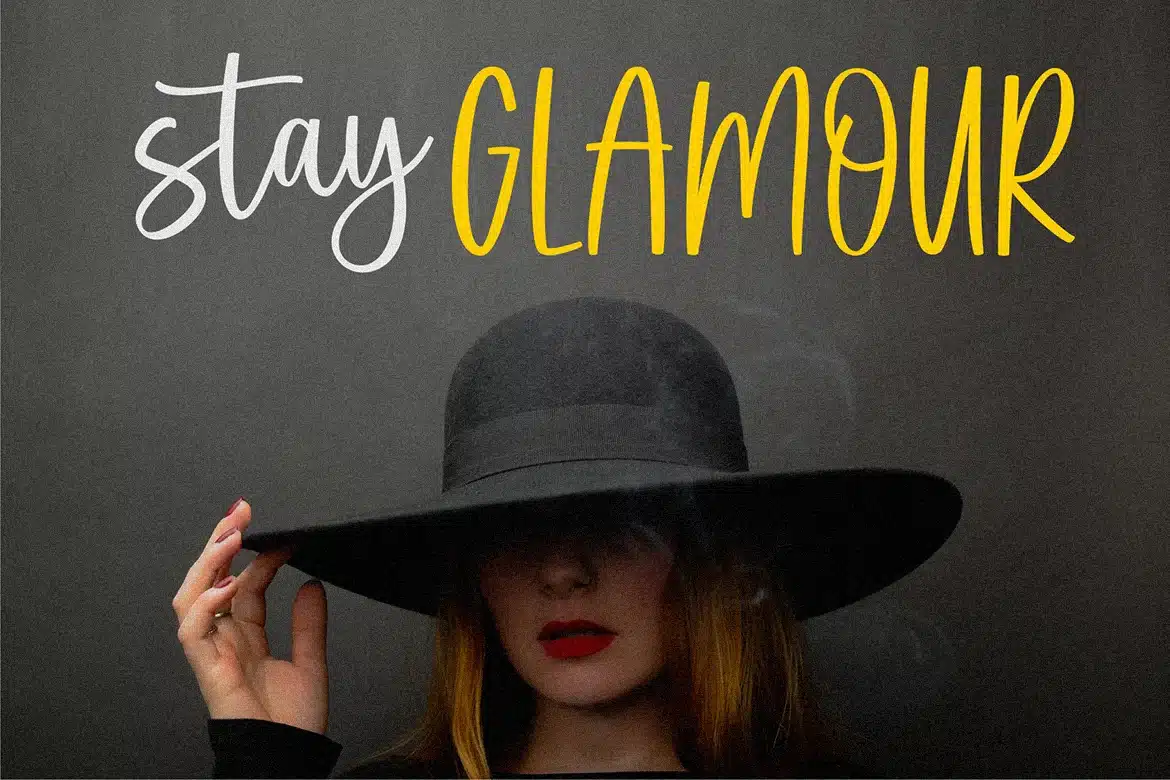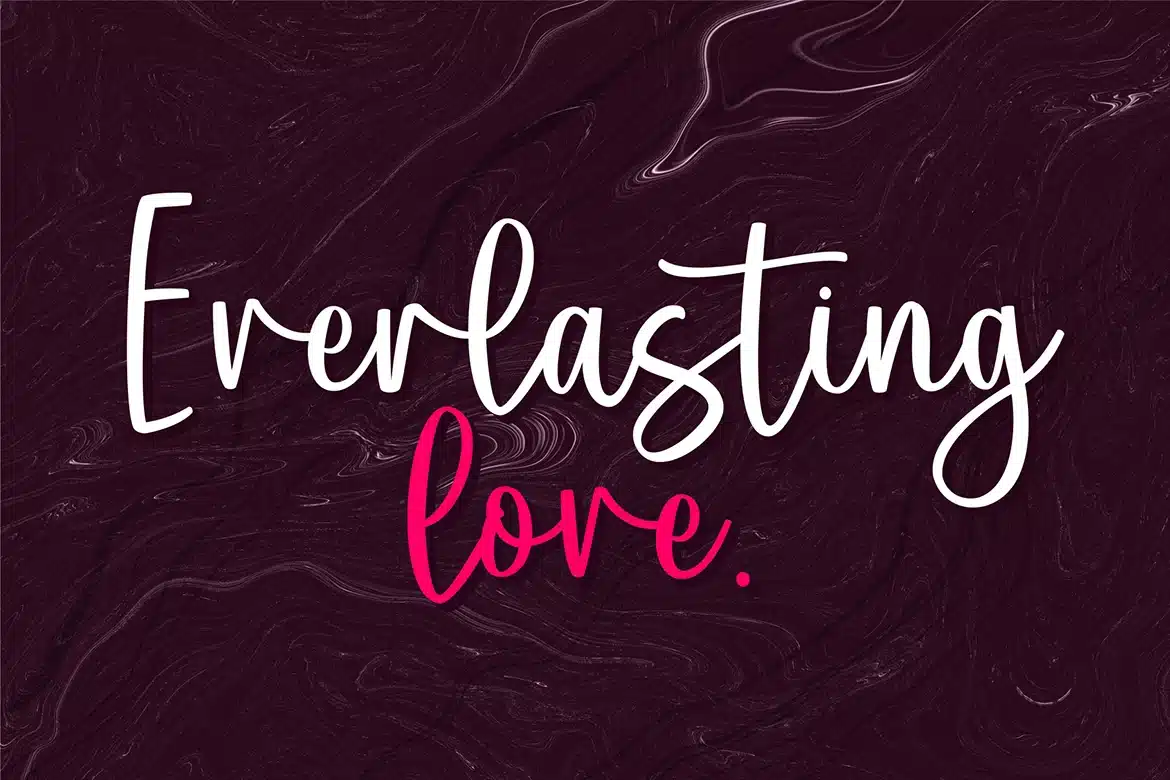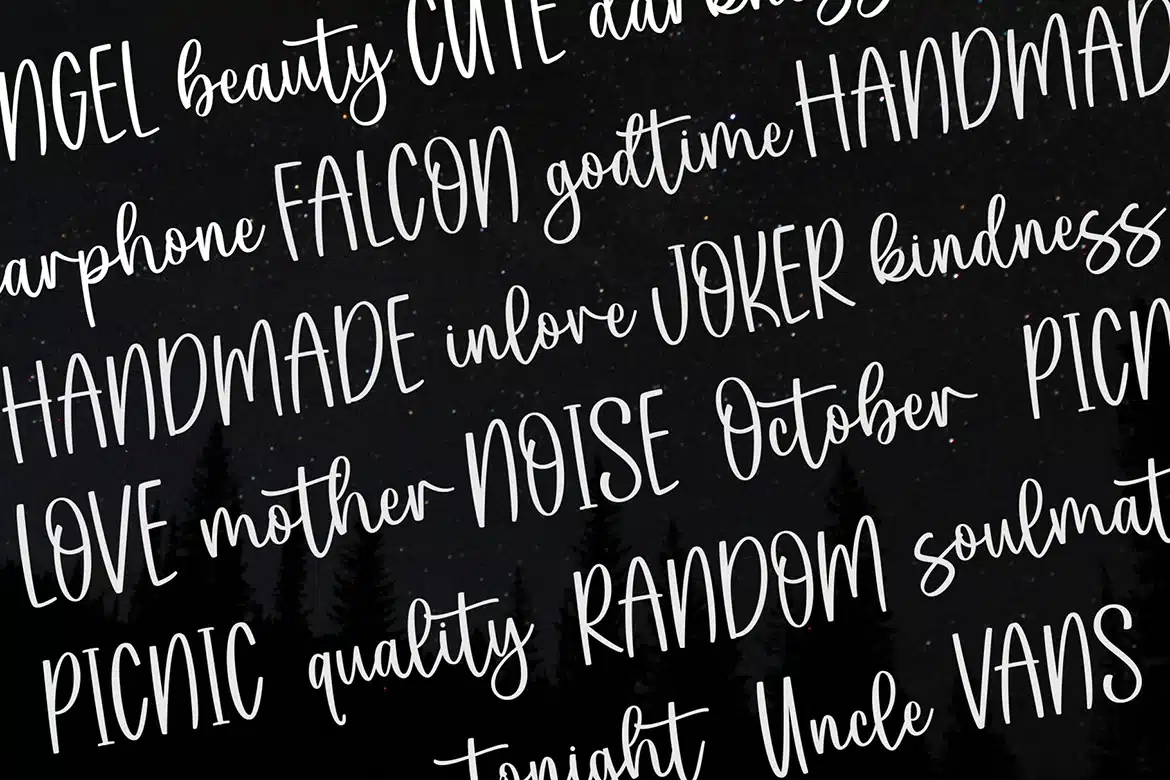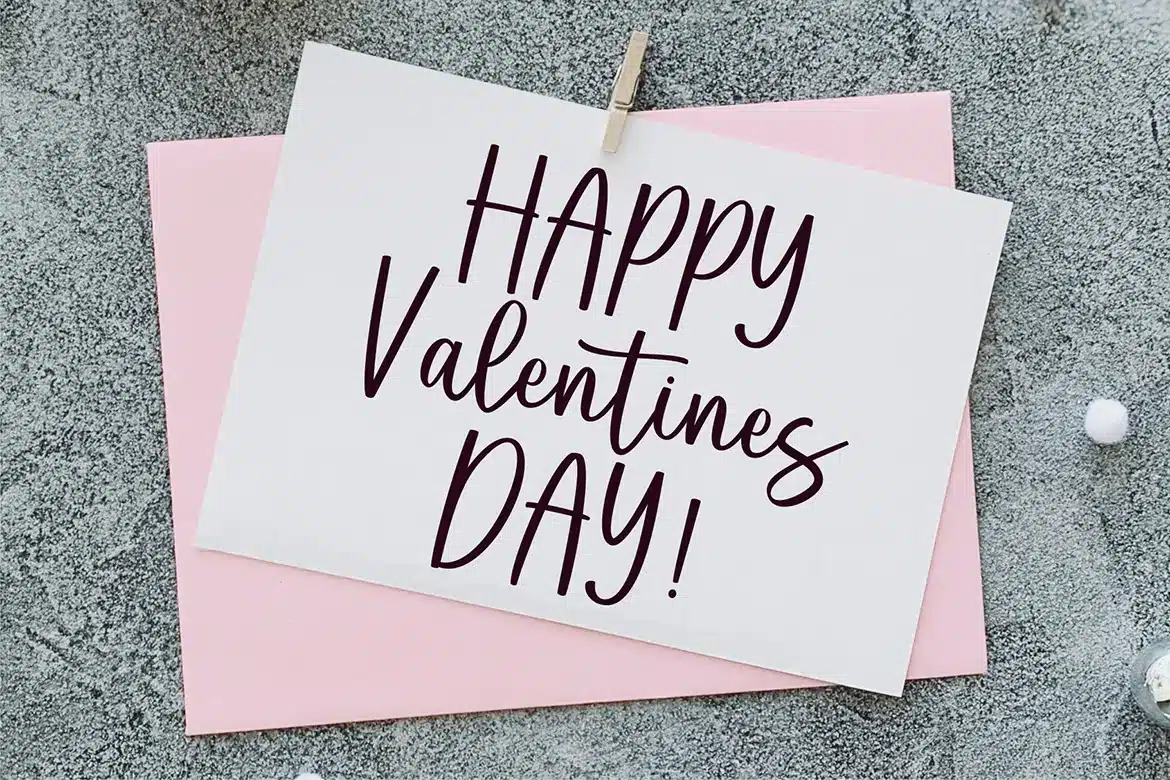
Starlove Romantic – Beautiful Calligraphy Font
Starlove Romantic Font is a Beautiful Calligraphy Font.
It's perfect for branding, wedding invitations, photography, Neon Sign, bloggers, logos, greeting cards, Logo, Quotes and more.
- numeric & Multilingual support